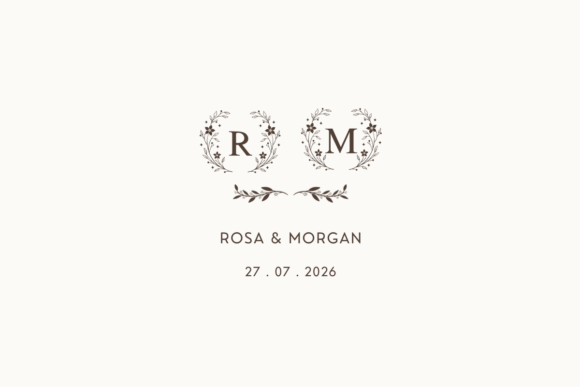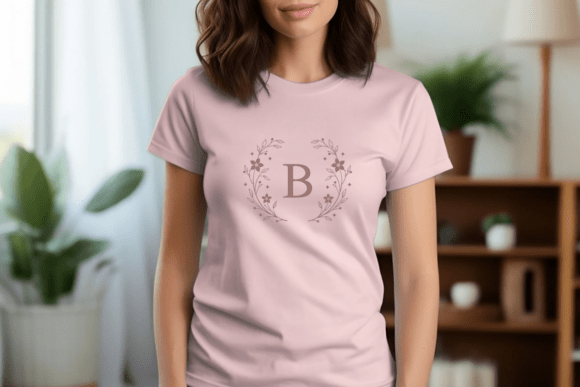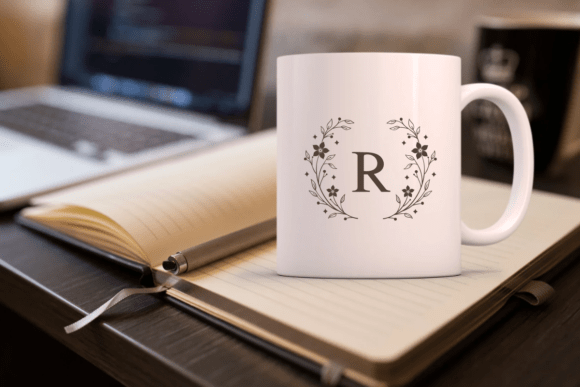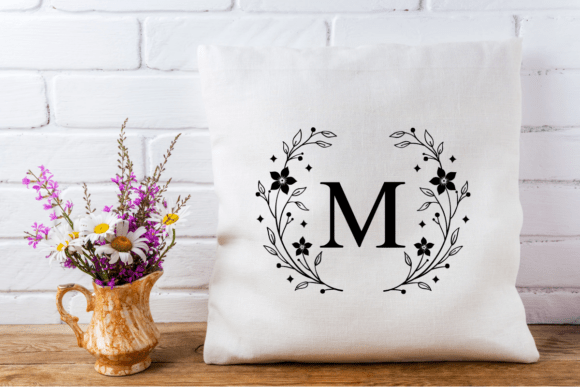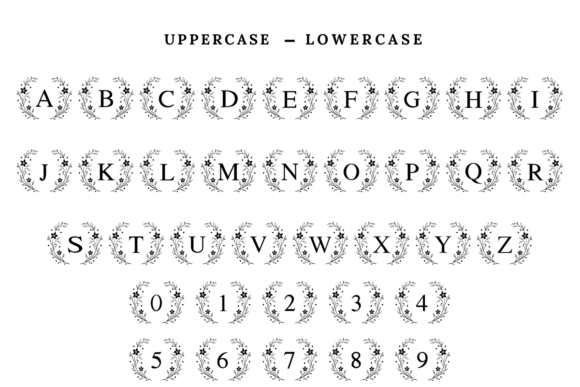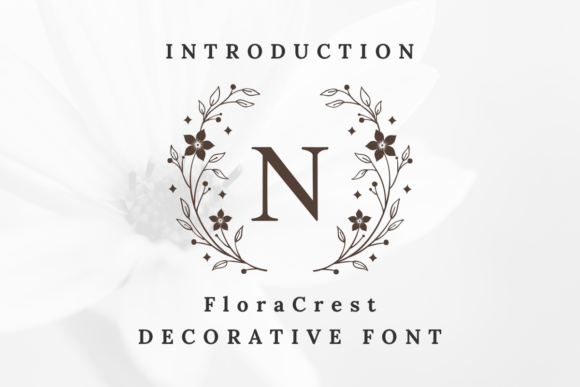
Introducing Flora Crest Font: Elegance Meets Botanical Charm
In the world of typography, few fonts manage to capture the essence of luxury, elegance, and sophistication as effectively as FloraCrest. This decorative monogram-style font is a masterpiece that seamlessly blends classic serif elegance with the intricate beauty of botanical illustrations. Each letter and numeral in FloraCrest is meticulously framed by a symmetrical floral crest, creating an ornate and refined aesthetic that is sure to elevate any design.
Perfect for Luxury Branding and More
FloraCrest is more than just a font; it’s a statement piece. Its unique blend of classic serifs and botanical elements makes it an ideal choice for luxury branding, where standing out is crucial. Imagine adorning your brand’s logo, packaging, or marketing materials with a font that exudes opulence and refinement. The result is immediate: a sophisticated brand image that commands respect and attention.
Beyond luxury branding, FloraCrest also shines in more personal and intimate applications. Wedding invitations, stationery, and personalized stationery are just a few examples where this font can add a touch of timeless elegance. The beauty of FloraCrest lies in its ability to transform any piece of design into a work of art that feels both vintage and contemporary.
A Closer Look at FloraCrest’s Design
One of the standout features of FloraCrest is its meticulous design. Each uppercase letter and numeral is encased in a symmetrical floral crest, creating a cohesive and regal look. The attention to detail is evident in the consistent wreath motifs across both the uppercase and numeral sets, ensuring that every element of the font works harmoniously to create a sophisticated aesthetic.
The font’s design is not just about beauty; it’s also about functionality. FloraCrest is best suited for display purposes where detail and impact are paramount. Whether you’re designing a billboard, a magazine headline, or a product label, FloraCrest ensures that your message is conveyed with not just clarity, but also with style and elegance.
Why Choose FloraCrest?
There are several reasons why designers and crafters should consider FloraCrest for their projects:
- Timeless Beauty: FloraCrest’s design is inspired by classic typography and botanical illustrations, making it a timeless choice that won’t go out of style.
- Versatility: While ideal for display purposes, FloraCrest’s elegance also makes it suitable for more detailed projects like wedding invitations and personalized stationery.
- Elegance and Sophistication: The font’s ornate details and symmetrical floral crests add an air of luxury and sophistication to any design.
- Cohesive Design: The consistent wreath motifs across the font ensure a cohesive look, making it perfect for projects that require a unified aesthetic.
Using FloraCrest in Your Projects
FloraCrest is more than just a decorative font; it’s a design statement. Its unique blend of classic serif elegance and intricate botanical illustrations makes it a versatile and sophisticated choice for any project that demands luxury, elegance, and timeless beauty. Whether you’re a designer looking to elevate your brand’s image or a crafter seeking to add a touch of elegance to your creations, FloraCrest offers a regal typographic solution that is sure to impress.
With FloraCrest, you don’t just choose a font; you choose an aesthetic, a statement of luxury and refinement that can transform any design into a masterpiece. So, if you’re looking for a way to add a touch of vintage charm and ornamental grace to your projects, FloraCrest is the perfect choice.